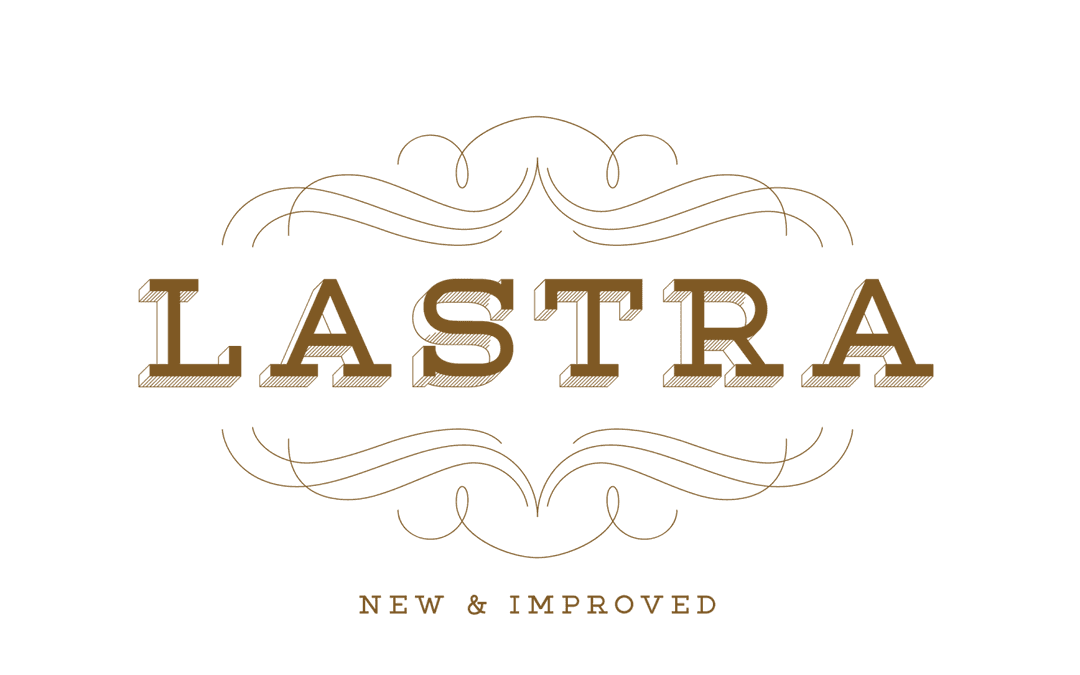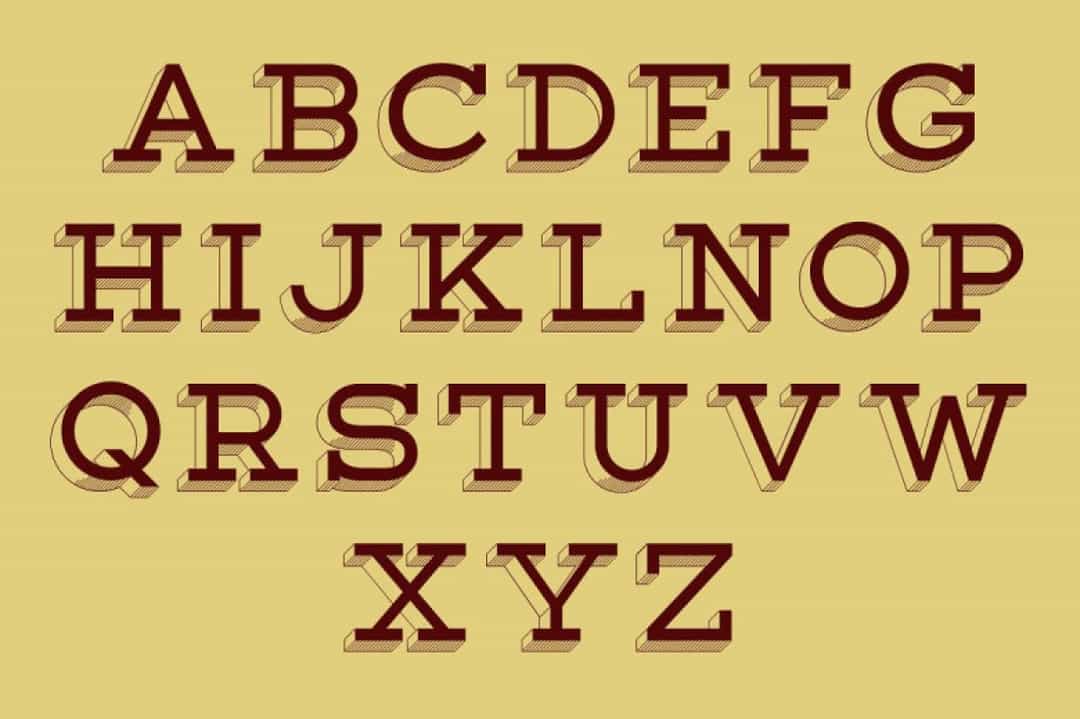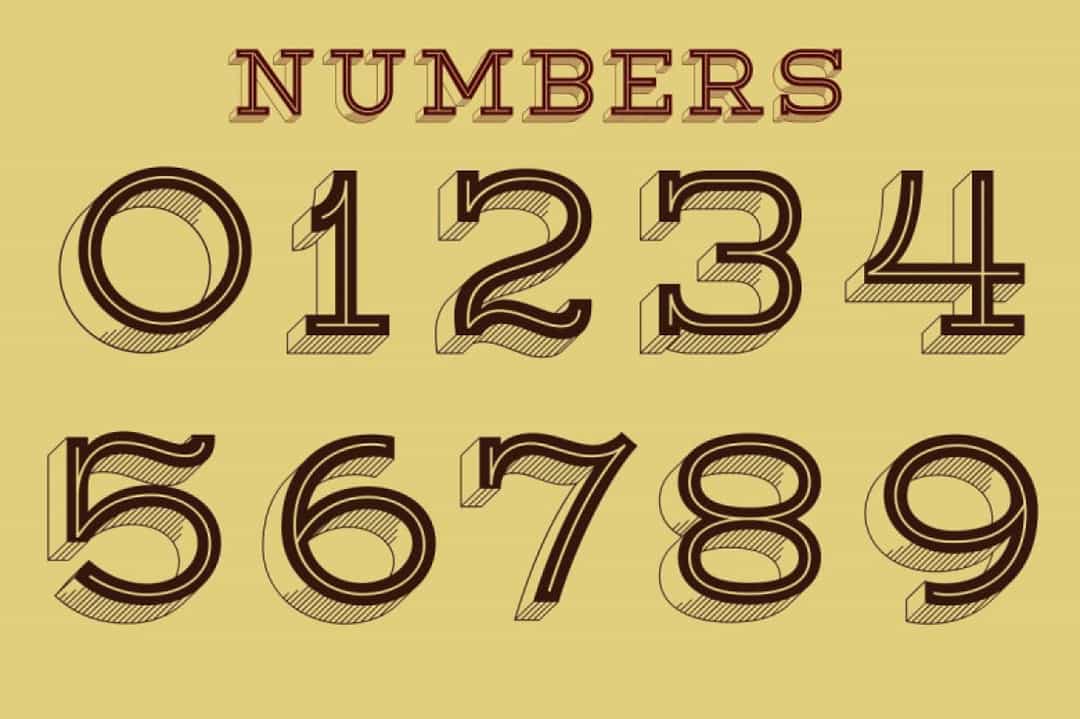
Welcome back Lastra! Perfect for cafes or restaurants alike. Now more appealing than ever with only capital letters (great for making an impactful statement!). This sign features numbers as well as special characters. With five complimentary styles and flourish glyphs for custom designs, this will draw in new customers quickly.